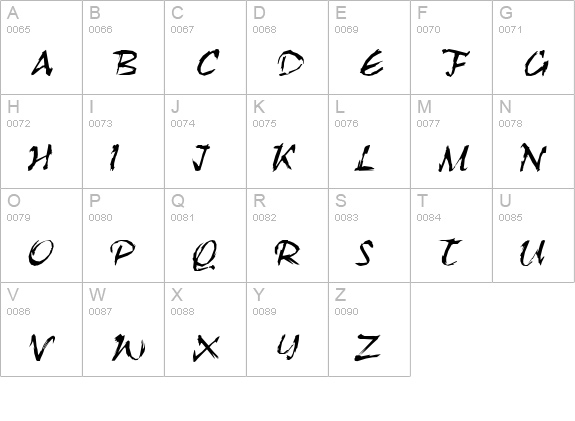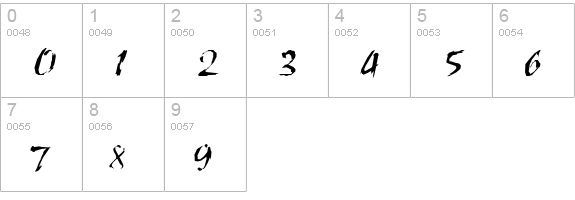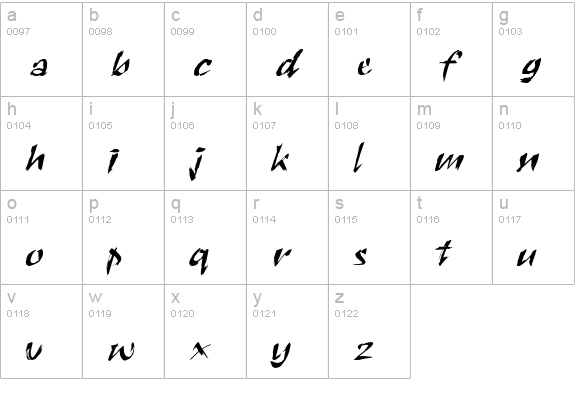
Phantasia Font Details
Introducing Phantasia font - a beautiful and elegant typeface that will bring a touch of magic to your designs. With its intricate details and unique style, Phantasia is perfect for adding a whimsical and enchanting touch to your projects. This font is not only visually stunning but also versatile, making it suitable for a wide range of design applications including branding, packaging, invitations, and more. Its timeless design and classic appeal will make your text stand out and captivate your audience. And the best part? Phantasia font is available for free download at FontsMarket.com. So go ahead and add a touch of fantasy to your designs with this exquisite typeface. Download Phantasia font today and let your creativity soar!